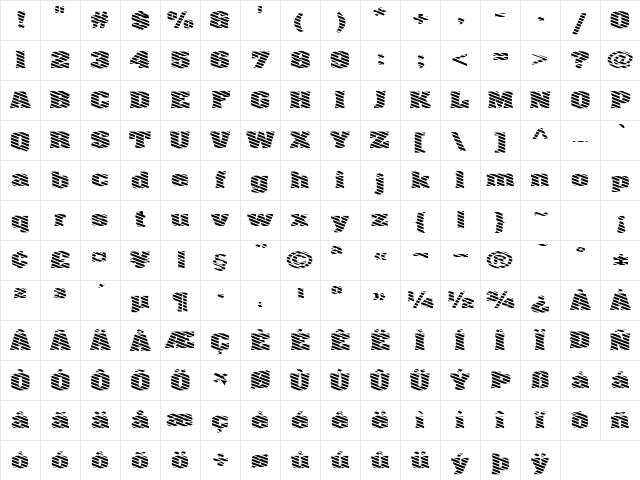
Heidelberg-Striped Normal
Design Context for Heidelberg-Striped
Heidelberg-Striped is a composed and adaptable typeface that performs quietly and consistently across a wide range of design contexts.
Pro Tip: Use Heidelberg-Striped in both headline and body roles to test its range before committing to a single application.